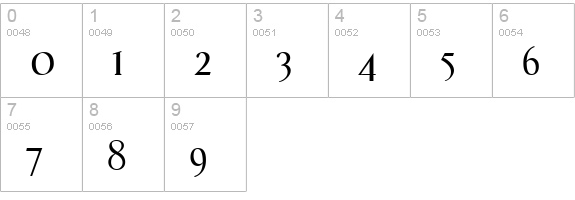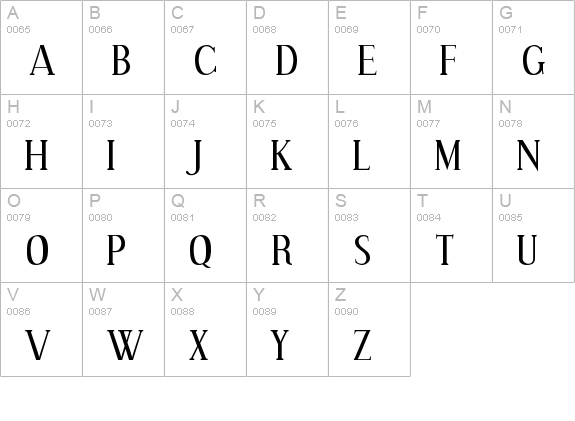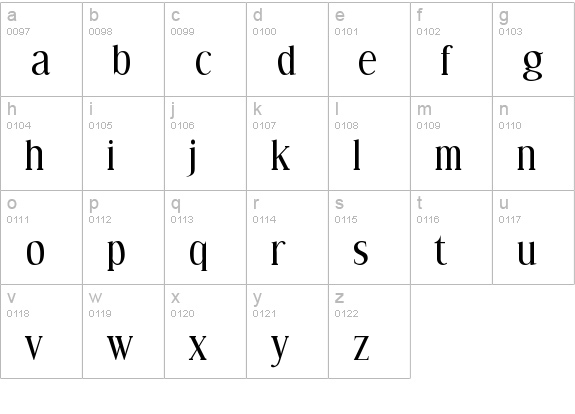
TR Effloresce Font Details
The TR Effloresce font is a beautifully designed typeface that exudes elegance and sophistication. Its delicate curves and intricate details make it perfect for adding a touch of class to any project. This versatile font is suitable for a wide range of design applications, from invitations and logos to packaging and branding. What sets TR Effloresce apart is not only its aesthetic appeal but also the fact that it is available for free download at FontsMarket.com. This means that you can access this stunning font without any cost, making it a valuable addition to your font library. Whether you're a designer looking to elevate your creations or an individual seeking a stylish font for personal projects, TR Effloresce is a must-have font that won't break the bank. Download it today and bring a touch of sophistication to your designs!